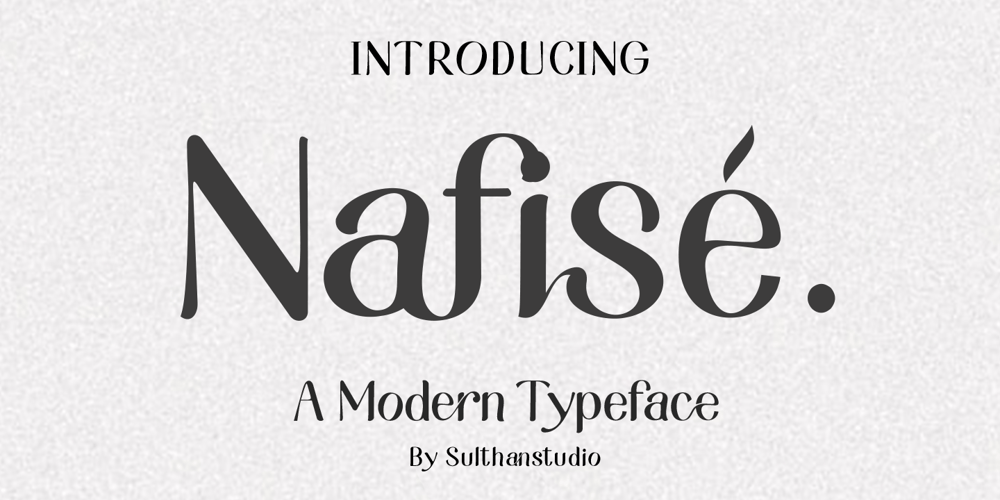
Nafise Font Family was designed by Nasrullah and published by Sulthan Studio. Nafise contains 3 styles and family package options. A modern font with a Typeface display style, very attractive, coupled with several lowercase ligatures. This font is available in 3 thickness styles such as regular, Bold, and Out line .This font has uppercase, lowercase, numbers, punctuation, and language support.